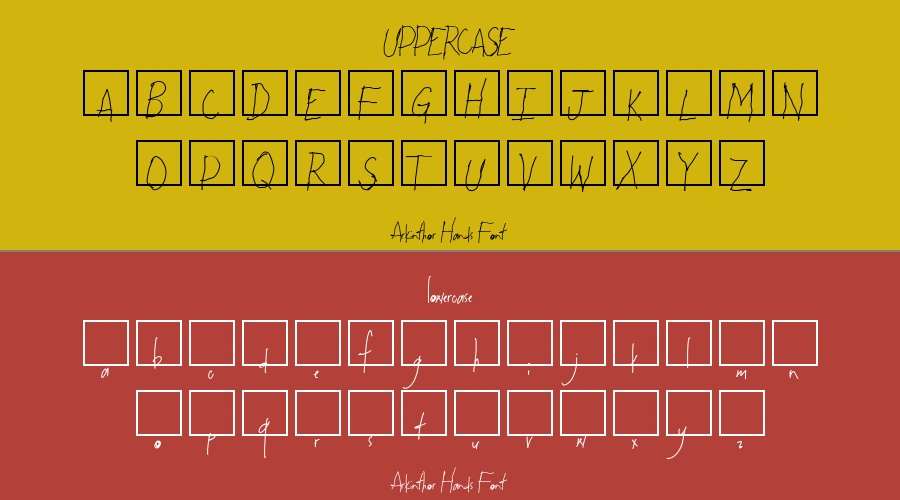
About Arkinthor Hands Font
Designed with precision, Arkinthor Hands Font merges precise alignment with functionality in every character. This versatility makes it particularly effective for motion graphics, where clarity and aesthetic refinement directly impact communication quality. Each letterform demonstrates meticulous craftsmanship.
Technical excellence shines through elements like confident strokes and oldstyle figures, enhancing typographic versatility. In exhibition titles settings, Arkinthor Hands Font proves its worth through superior reliability. The thoughtful execution of aperture size and artistic merit ensures professional results.
Arkinthor Hands Font |